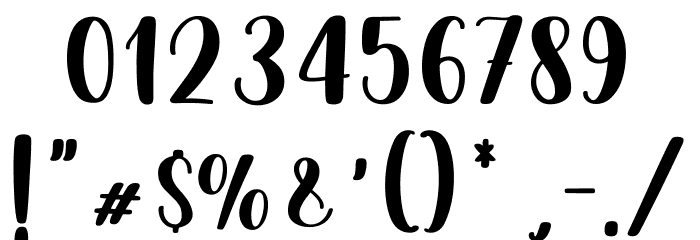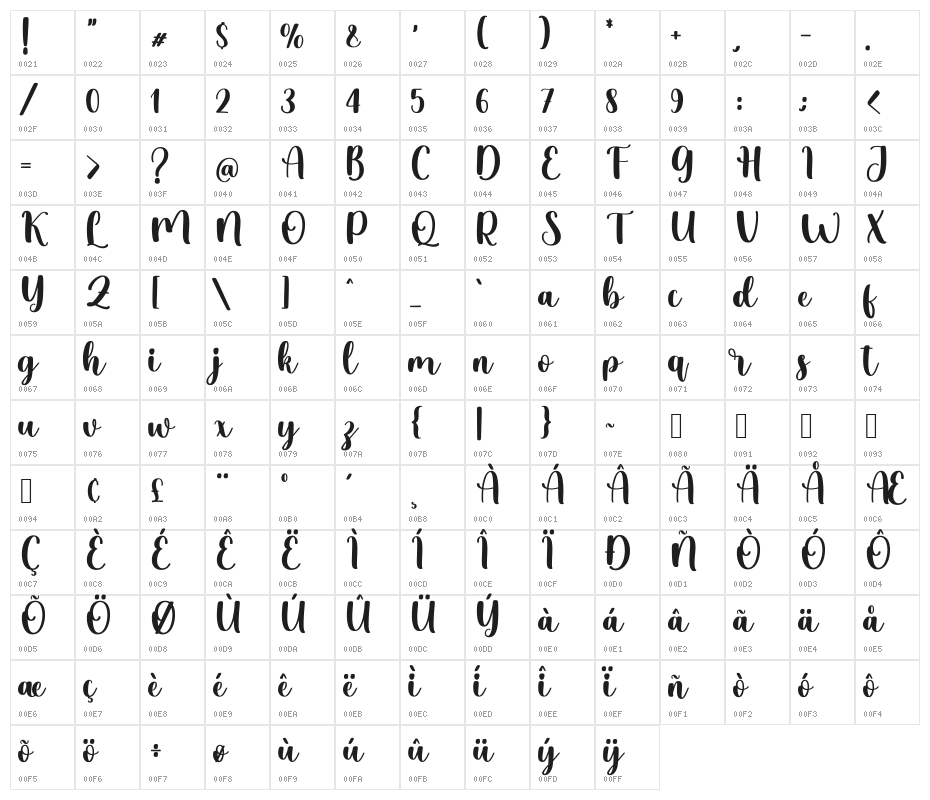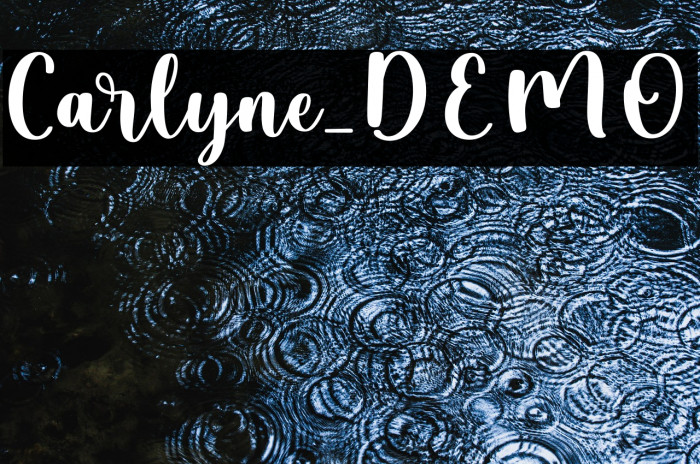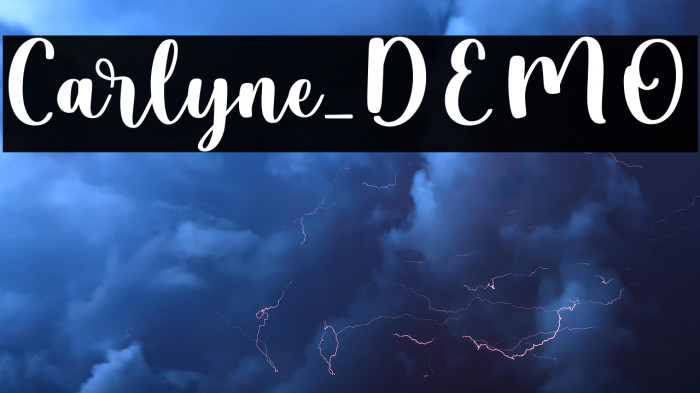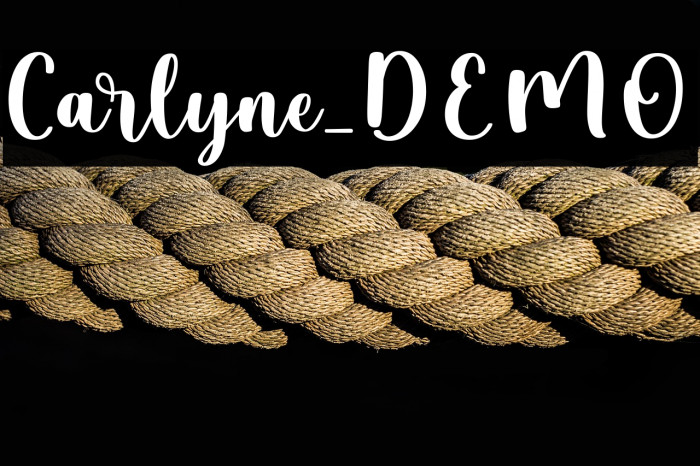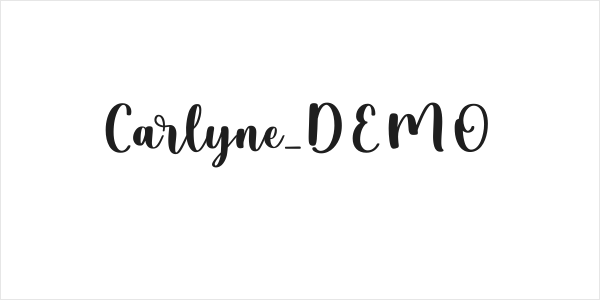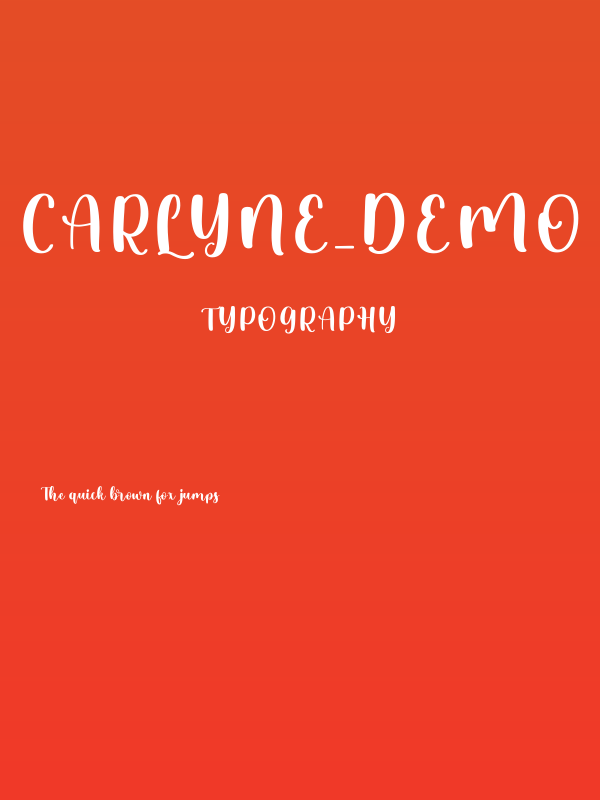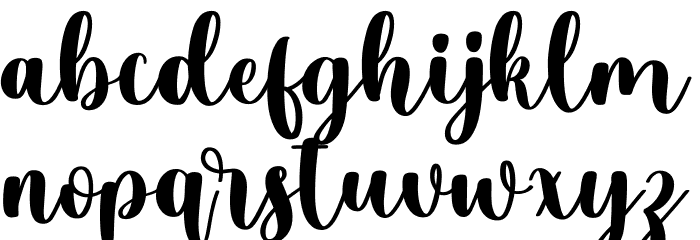
Carlyne_DEMO Font
Carlyne_DEMO Description
This font features a bold and expressive script style, characterized by its flowing, cursive letterforms. The uppercase letters are distinct with a playful yet elegant flair, while the lowercase letters maintain a consistent, smooth flow. The numbers are rounded and maintain the same boldness, ensuring readability. Special characters are designed to complement the overall style, adding a touch of whimsy. The font's thick strokes and high contrast between thick and thin lines give it a dynamic and lively appearance, making it ideal for creative and artistic projects.
| Proposed Projects | Ideal for invitations, greeting cards, branding, and creative design projects. |